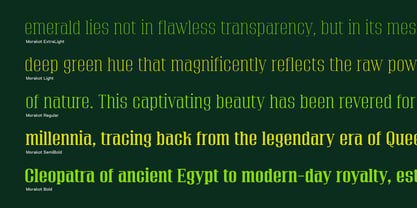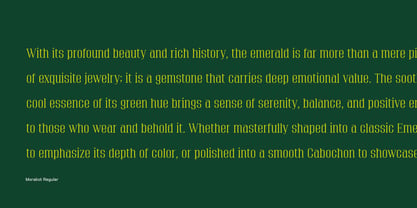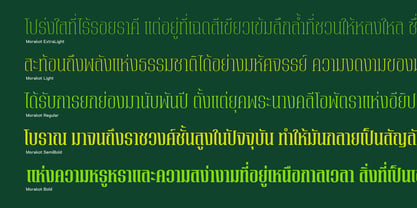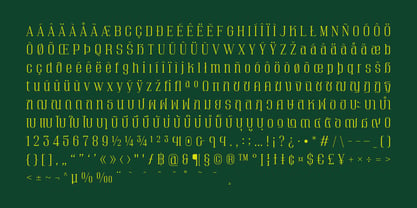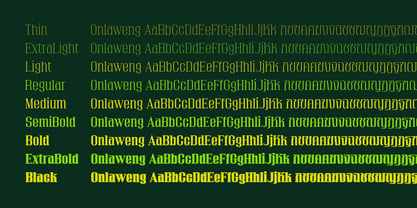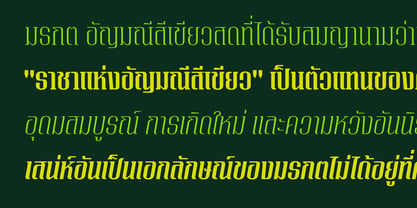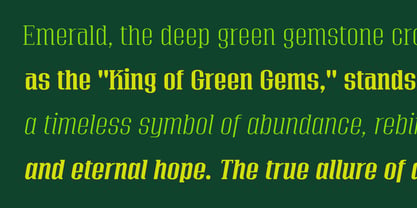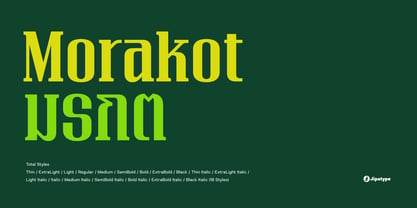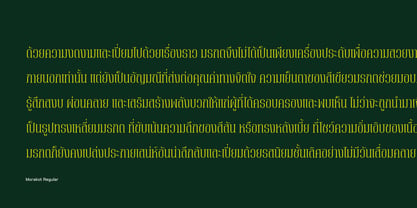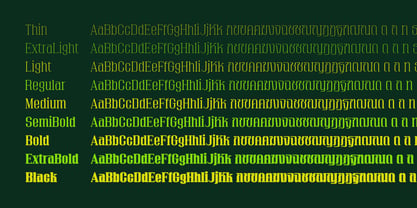
Morakot
The Morakot Font Family was designed by Anupap Jaichumnan and published by Jipatype. Morakot contains 18 styles. More about this family
Morakot is a serif typeface features a tall and elongated structure. The Latin characters are designed with sharp, geometric serifs, while the Thai script uses a loopless style with angular terminals tailored to seamlessly match the Latin counterpart. A prominent characteristic of this font is the striking contrast between thick and thin strokes, which becomes particularly pronounced in the bolder weights. The versatile family includes 18 styles, spanning from Thin to Black, complete with matching italics for every weight.
With its classic, formal, and sophisticated aesthetic, this typeface is ideal for design projects that require a luxurious and premium appearance. It is well-suited for fashion branding, jewelry logos, high-end packaging, and editorial or magazine layouts. Furthermore, it is highly effective for headlines and large display text on websites and advertising banners, where its sharp, distinct letterforms easily draw attention and establish strong visual credibility.
Jipatype is a type foundry founded and operated solely by Anupap Jaichamnarn, based in Bangkok, Thailand. Officially established in 2022, the foundry's journey began in 2019. The name "Jipatype" is derived from the Thai word “Jipatha” (จิปาถะ), meaning "miscellaneous" or "variety." This name reflects the diverse design concepts and influences that shape Jipatype’s versatile font collections.